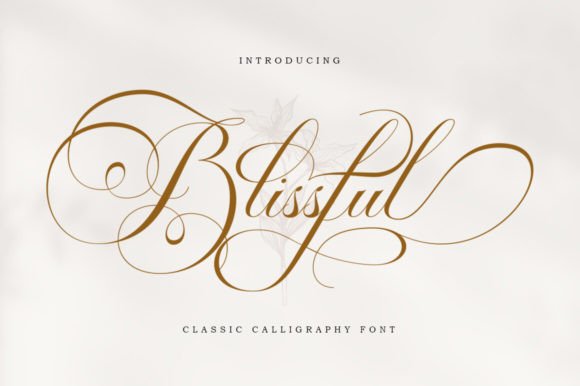
The Blissful Font: Elevating Your Designs with Elegance and Sophistication
I’ll never forget the time I was working on a wedding invitation project, and my client asked for a font that exuded luxury and romance. I scoured the internet, trying out font after font, but nothing seemed quite right. That was until I stumbled upon the Blissful Classic calligraphy font. ✨ With its exquisite changing characters and classic decorative copper script with a modern touch, it was love at first sight!
An Honest Review of Blissful Classic
- ✨ Smooth and clean lines that make it a joy to read
- ✅ Feminine, sensual, and glamorous feel that’s perfect for high-end designs
- 💫 Luxurious letter connections that add a touch of sophistication
- 🎨 Highly detailed design that brings out the elegance of the style
While Blissful Classic is an amazing font, there are a few things to keep in mind: 🤔
- ⚠️ The font’s intricate details may not display as well at very small sizes
A Practical Guide to Using Blissful Classic
The Story Behind Blissful Classic
Blissful Classic was designed with the intention of creating a font that would bring a touch of elegance and sophistication to any design project. The designer, inspired by the classic copper script fonts of the past, wanted to create a modern take on a timeless style. With its intricate details and luxurious letter connections, Blissful Classic is the perfect choice for designers looking to add a touch of glamour to their work.